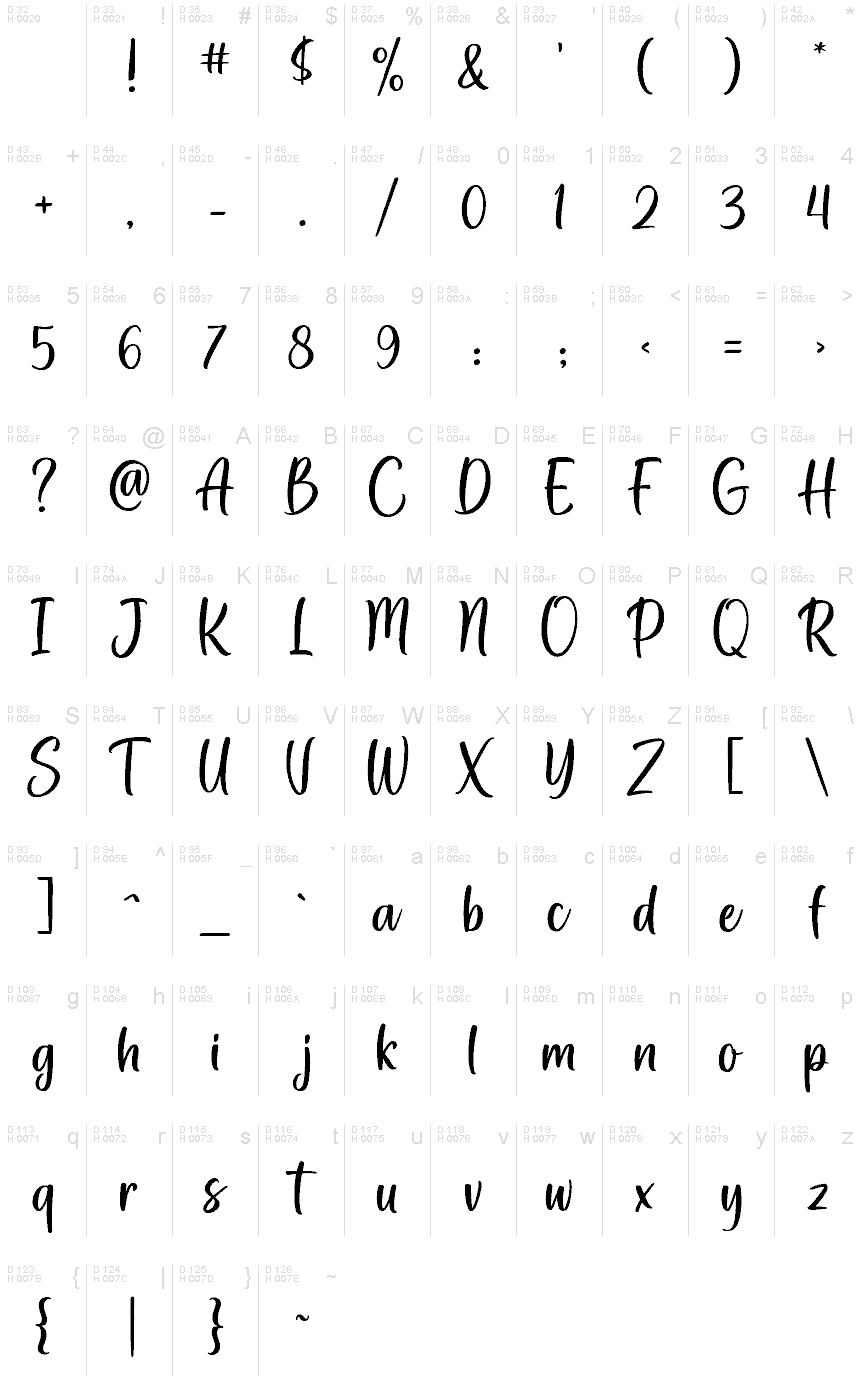
Austral Script
Austral Script font by Cat.B embodies casual elegance with an expressive handwritten style. Its smooth flow and modern aesthetic provide versatility and charm, making it a perfect choice for several professional and personal design projects. A free handwritten font that can be instantly downloaded, then included in magazines, greeting cards, movie credits, book covers.
Use this beautifully crafted script also in branding designs, social media posts (for engagement), advertisements (for exposure), films or websites. The condensed letters are enchanting when used on wedding invitations and menus. You can even add them to apparel items to give your products a special flair.